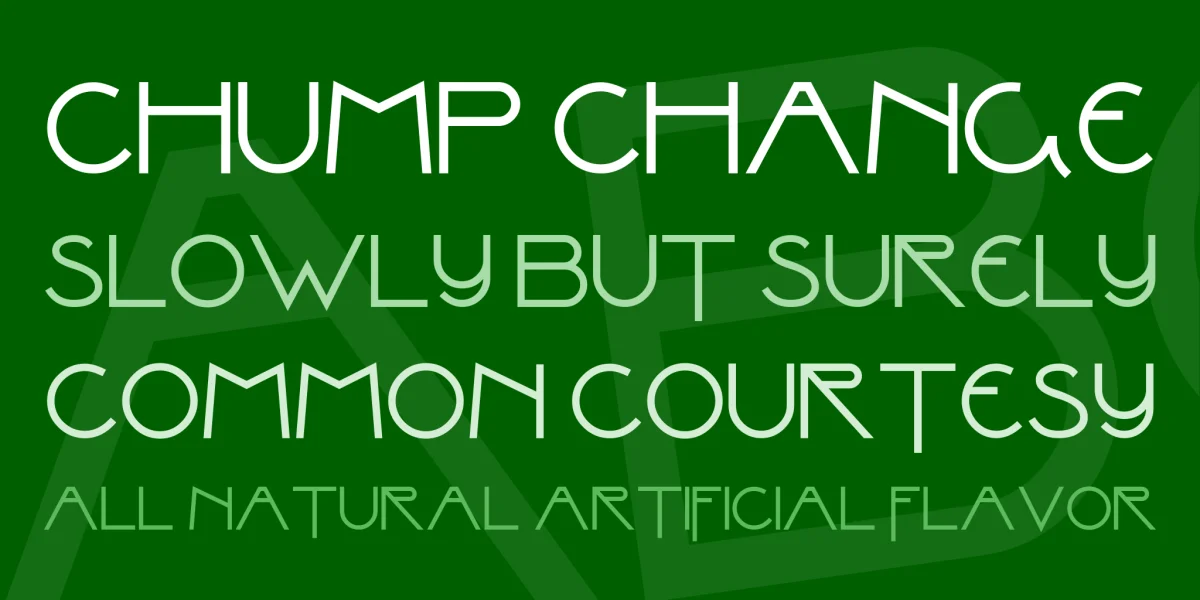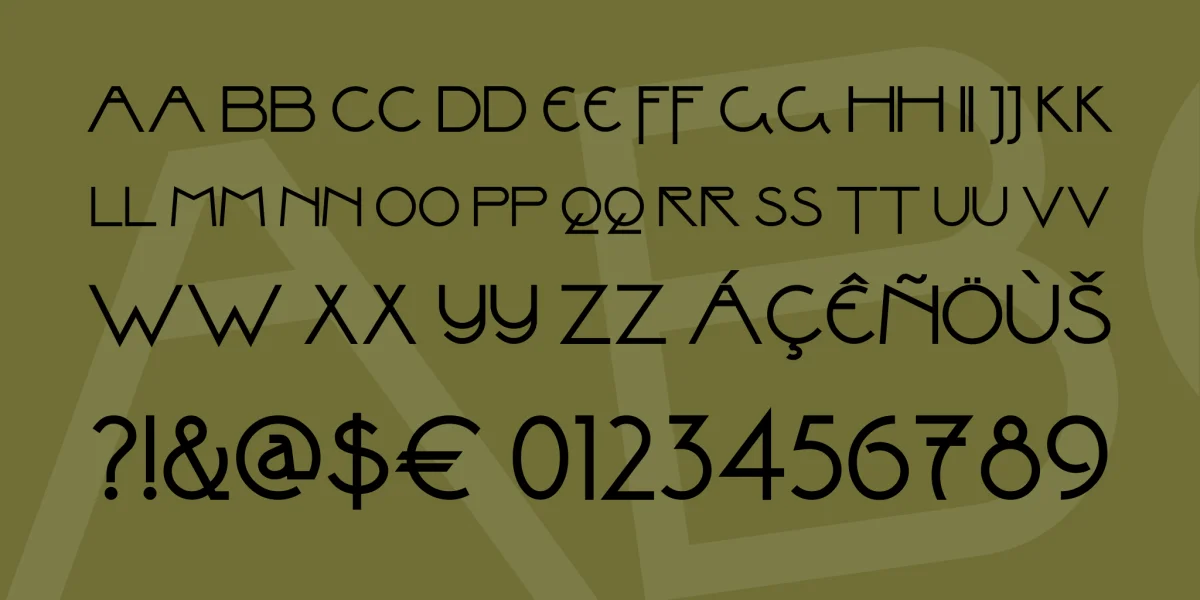
This one is a golden oldie, based on lettering by German poster artist Johann Cizzarz from 1897. Lean and clean with a few tasty twists and turns, the font’s name was chosen simply to showcase some of those charming idiosyncracies.